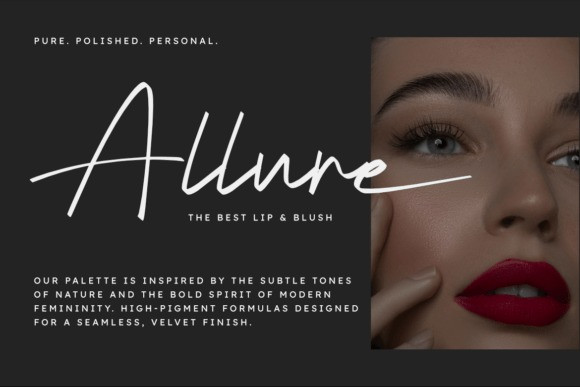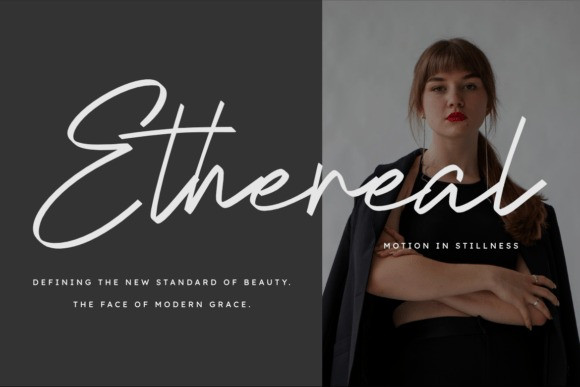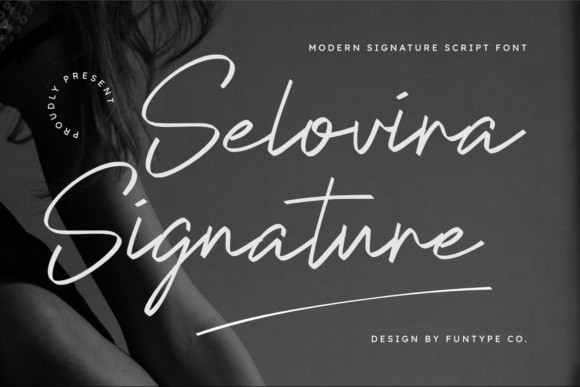
Selovira Signature Handwritten Font
Selovira Signature Handwritten Font is a bold and elegant signature script font designed for impactful typography. With its natural flow and refined structure, this font is perfect for strong headlines, modern posters, wedding invitations, photography watermarks, branding, and high-impact advertising. Its clean and confident design gives your visuals a striking and professional look.